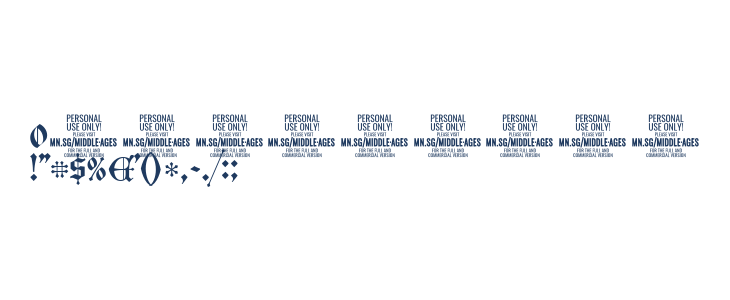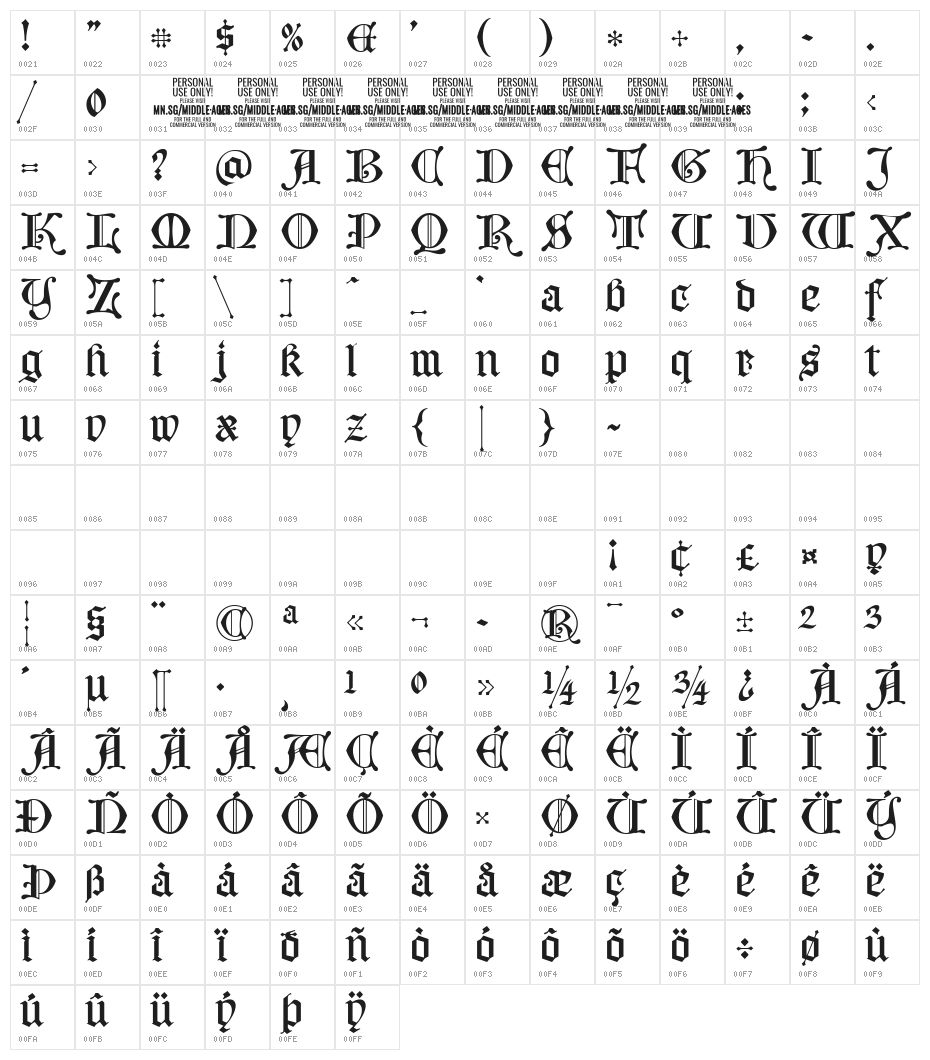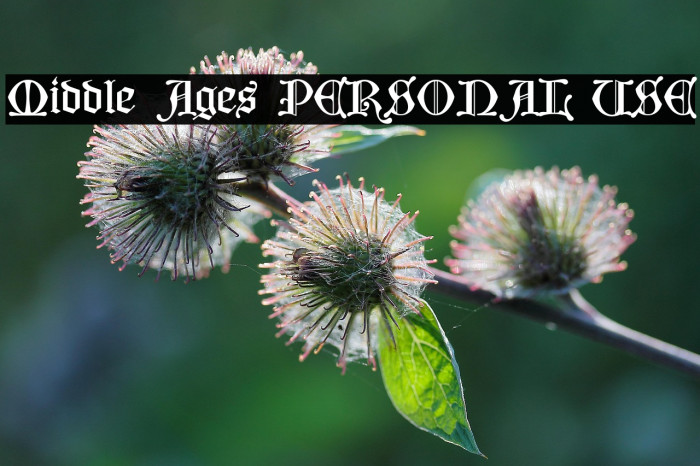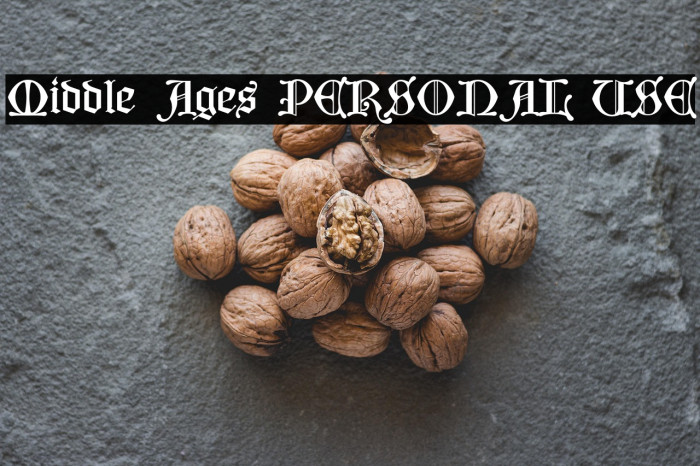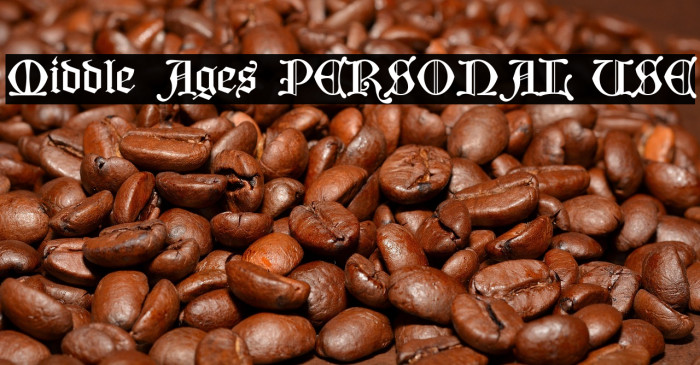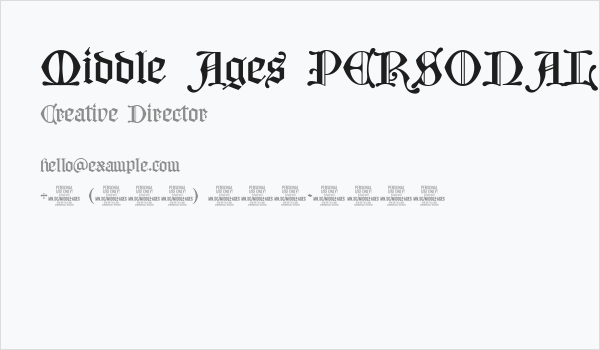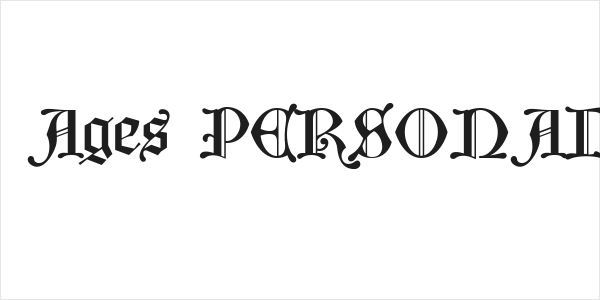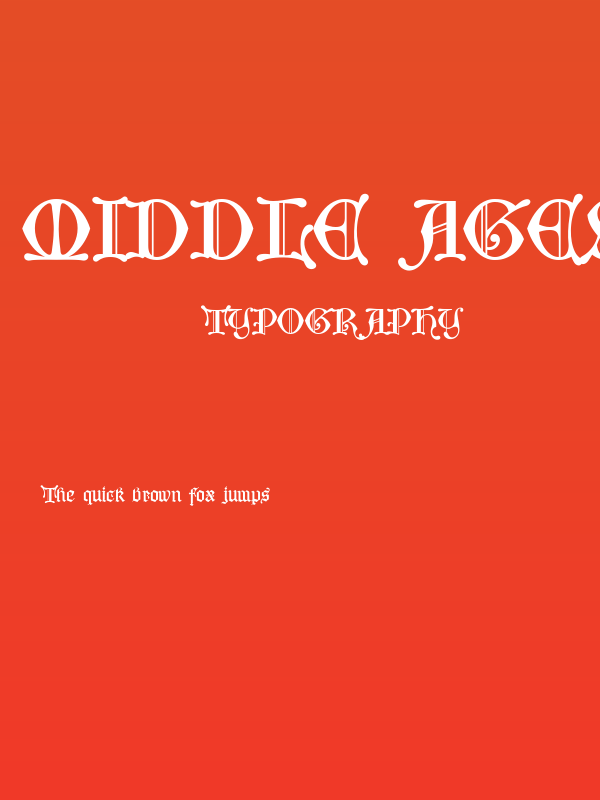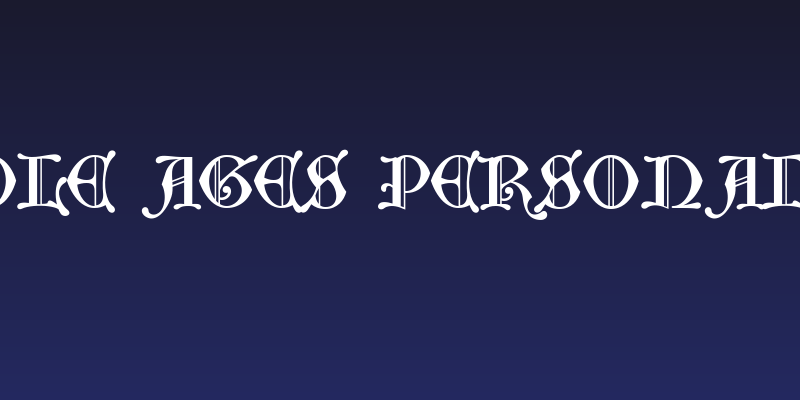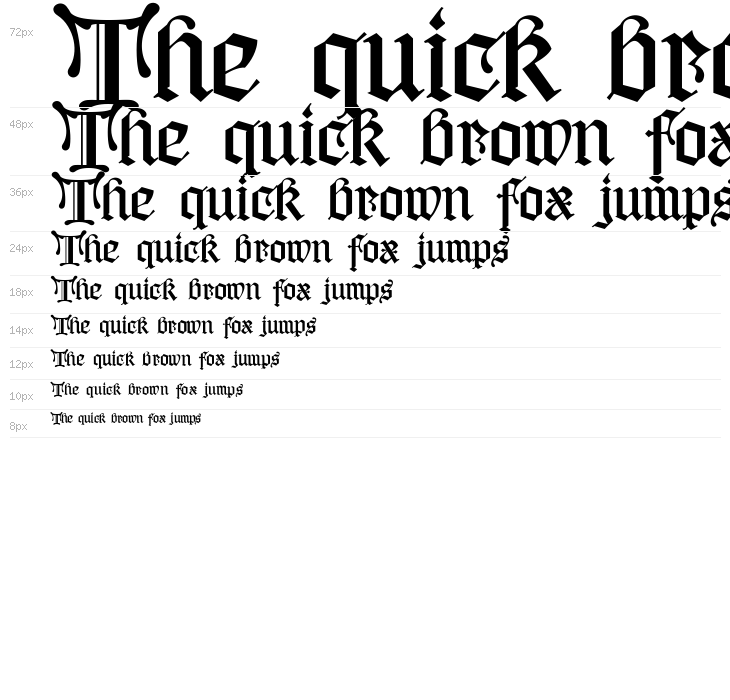
Middle Ages PERSONAL USE Font
Middle Ages PERSONAL USE Description
This font embodies a medieval aesthetic with its intricate, ornate design reminiscent of Gothic script. The uppercase letters feature elaborate flourishes and sharp angles, while the lowercase letters maintain a bold, structured appearance. The overall style is highly decorative, with a strong emphasis on vertical lines and pointed serifs. The numerals and special characters are equally stylized, maintaining the font's cohesive medieval theme. This font is ideal for projects that require a historical or fantasy element, offering a dramatic and eye-catching appearance.